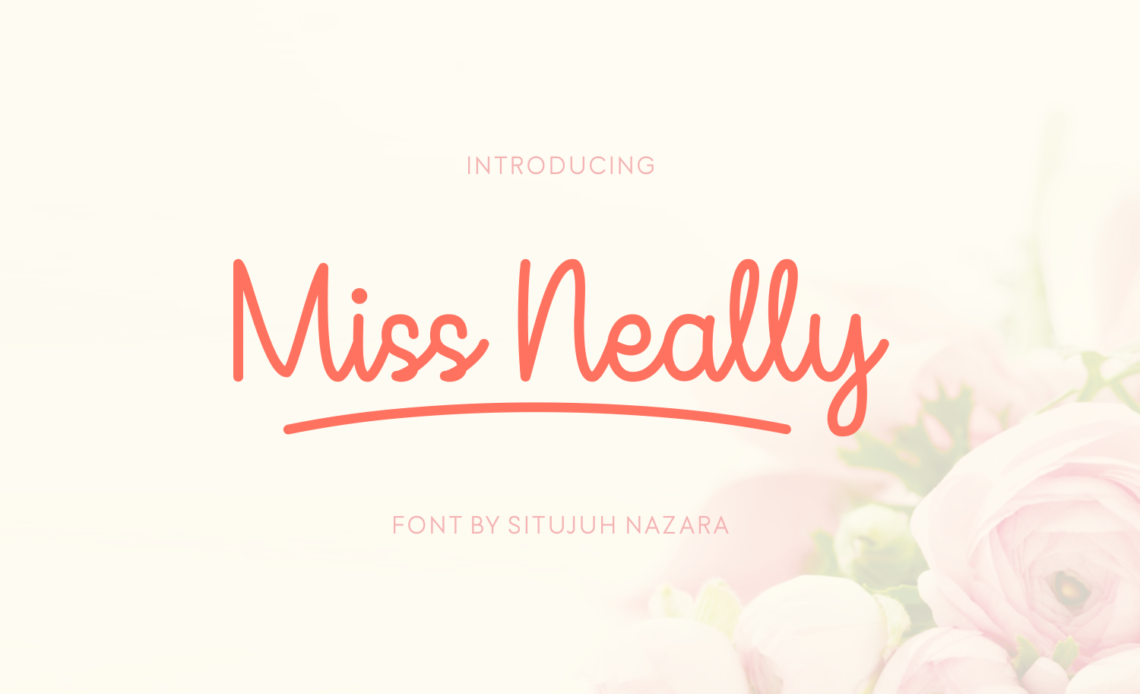
Miss Neally Font: Where Timeless Elegance Meets Modern Grace
Prepare to be swept off your feet by the mesmerizing charm of Miss Neally Font, a captivating monoline script font that exudes sophistication and grace. Its smooth, flowing curves and elegant swashes create a visual symphony that dances across your designs, leaving an indelible impression on all who behold it.
Immerse yourself in the world of Miss Neally, where beauty and functionality seamlessly intertwine. With its delicate strokes and graceful flourishes, this script font possesses a timeless allure that effortlessly elevates any project. Whether you're a seasoned designer or just starting your creative journey, Miss Neally is the perfect companion for bringing your artistic visions to life.
Unlock a Universe of Creative Possibilities
Miss Neally Font's versatility knows no bounds, making it the ideal choice for a vast array of design endeavors. Create breathtaking wedding invitations that capture the essence of everlasting love, add a touch of elegance to your branding materials, or craft social media posts that shimmer with sophistication. Let your imagination run wild as you explore the endless possibilities that await you with Miss Neally.
Experience the Joy of Effortless Creation
With Miss Neally Font, gone are the days of painstakingly crafting intricate designs. This font's intuitive features and user-friendly interface make it a breeze to incorporate its beauty into your projects. Unleash your creativity without limits, knowing that Miss Neally will flawlessly execute your every design vision.
Make a Statement that Speaks Volumes
In a world saturated with visual noise, it's the fonts that truly make a statement. Miss Neally Font is your secret weapon to stand out from the crowd and capture the attention of your audience. Its captivating presence commands attention, leaving a lasting impression that lingers long after the page is turned.
Embrace the Beauty of Timeless Elegance
Miss Neally Font is more than just a collection of letters; it's a gateway to a world of timeless elegance and sophistication. Download it today and discover the transformative power of a font that elevates your designs to new heights. Join the ranks of discerning creatives who have harnessed the magic of Miss Neally to create masterpieces that captivate and inspire.